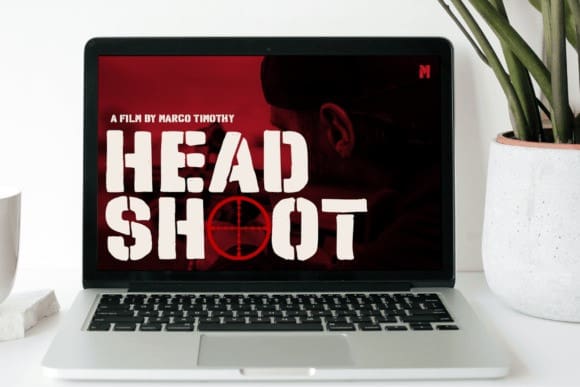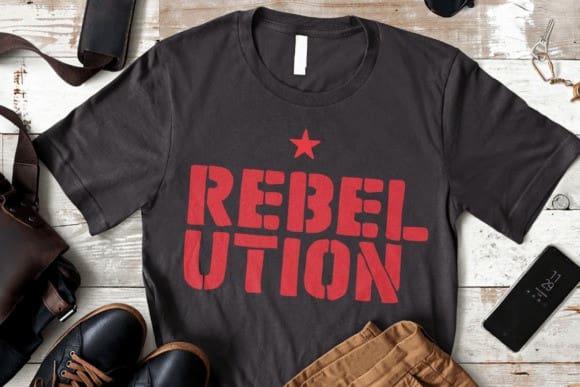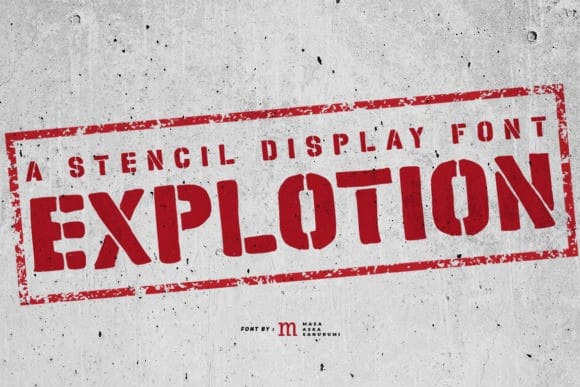
Explotion Stencil Font
Explotion Stencil Font is a stencil display font, perfect for a wide spectrum of applications such as greeting cards, headlines, and many more! Add it to any of your creative projects, and it will give them a cool and exquisite feel.